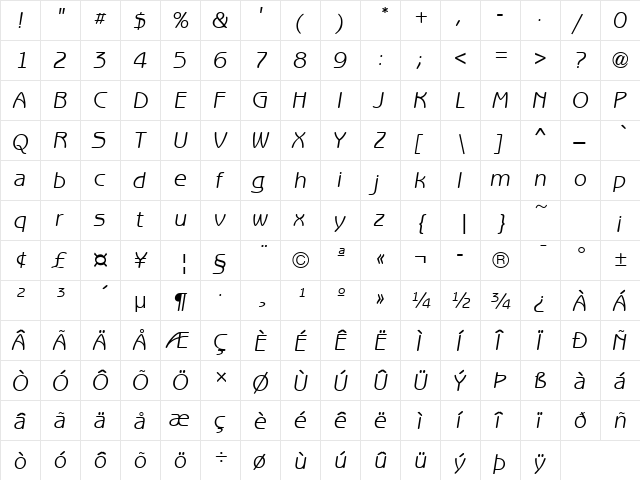
BenjaminGothic Italic
Design Context for BenjaminGothic Typeface
BenjaminGothic has the quiet confidence of well-executed sans-serif typography: versatile, unobtrusive, and dependable at any size. The slanted form adds forward momentum and visual energy.
Font Pairing: Works well alongside a characterful serif or display font that can carry the expressive load while BenjaminGothic handles the functional copy.
Pro Tip: Use BenjaminGothic for UI labels, navigation, and short-form body copy where clean legibility is the priority.